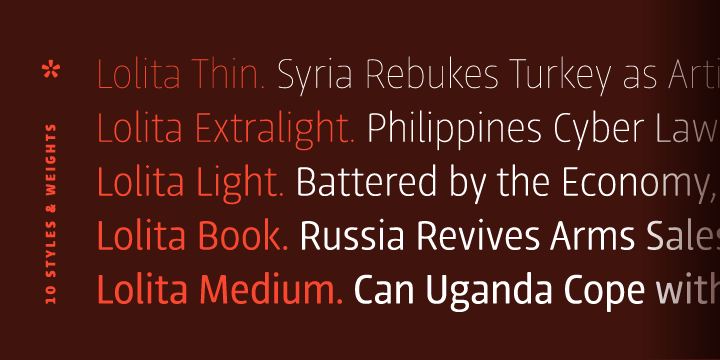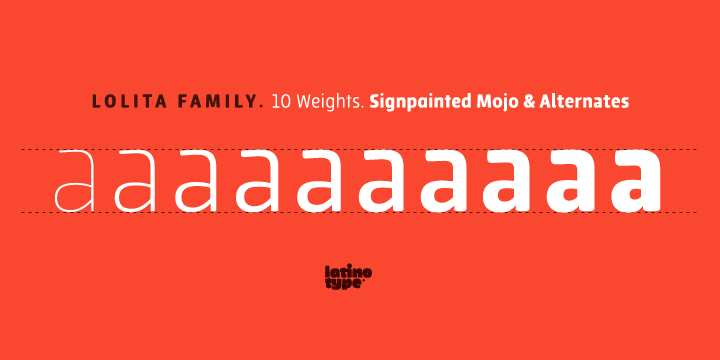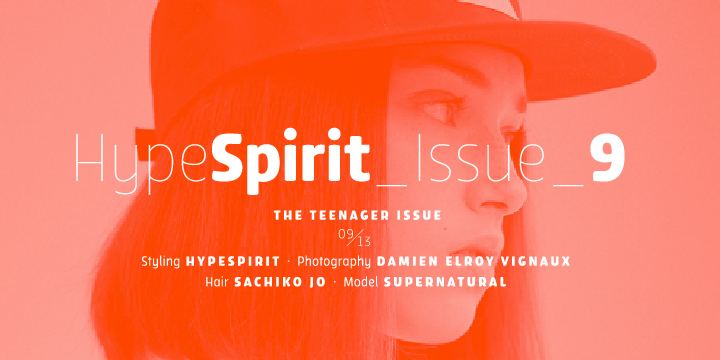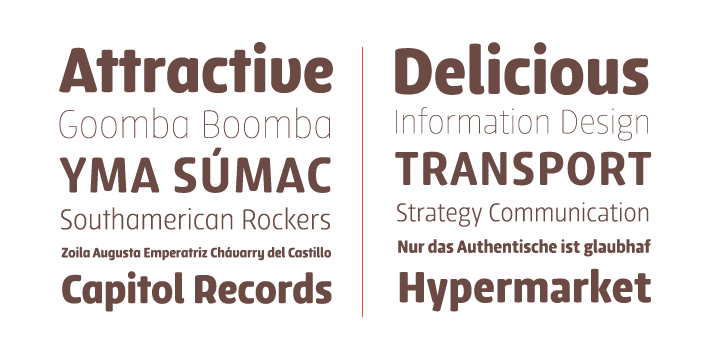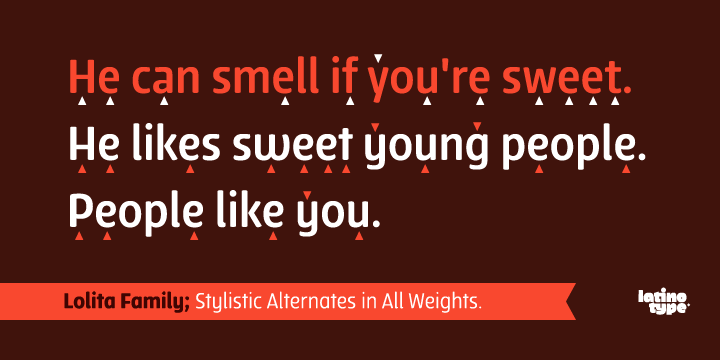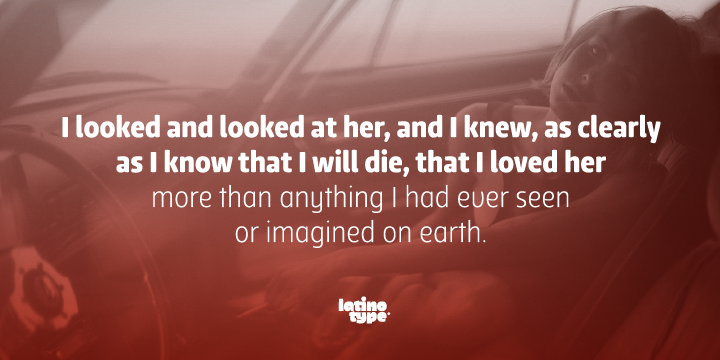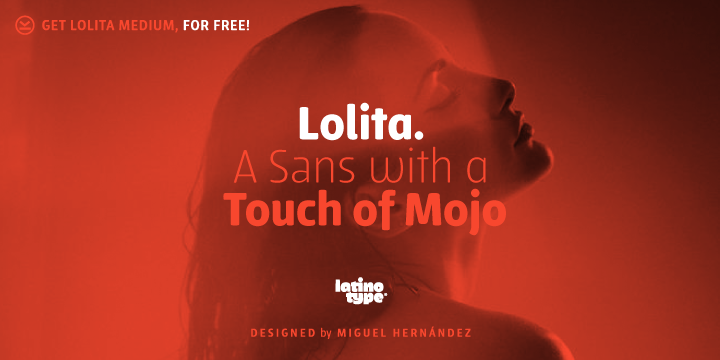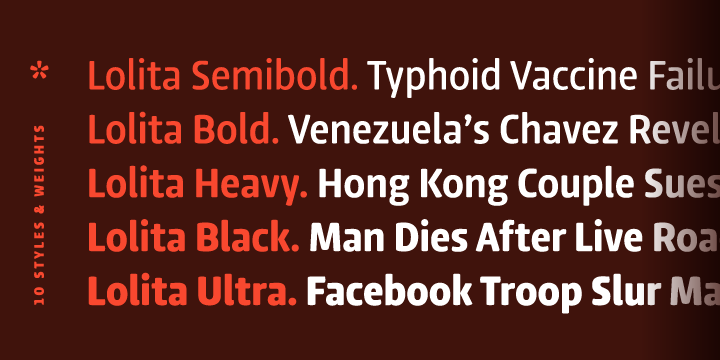
Lolita is a sans serif font family. This typeface has ten styles and was published by Latinotype.
Lolita, Designed by Miguel Hernández is a fresh neo-humanist sans serif with a display charmness.Legible & Playful, Lolita is a Sans Family with a touch of Mojo. From Branding, Magazines to catchy Advertisements. From Fancy Thin to Impact Ultra Boldness is family of 10 styles full of display alternates if all weights.This typeface contains additional opentype upright italic lowercases (a, e, f, g, t, v, w, y, z) and display alternates caps (A, B, E, F, G, H, P, R, S) that helps to emphasise display charm in text or words.